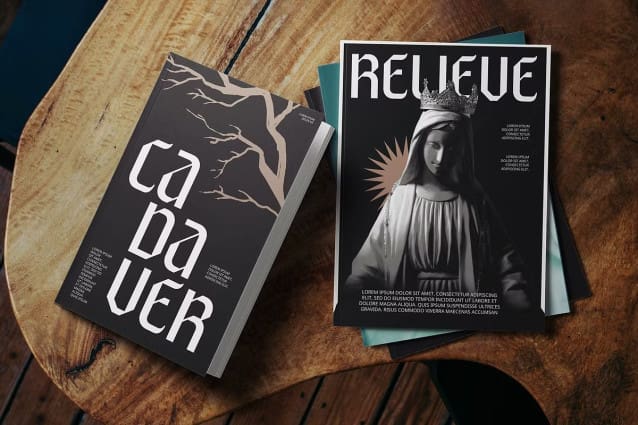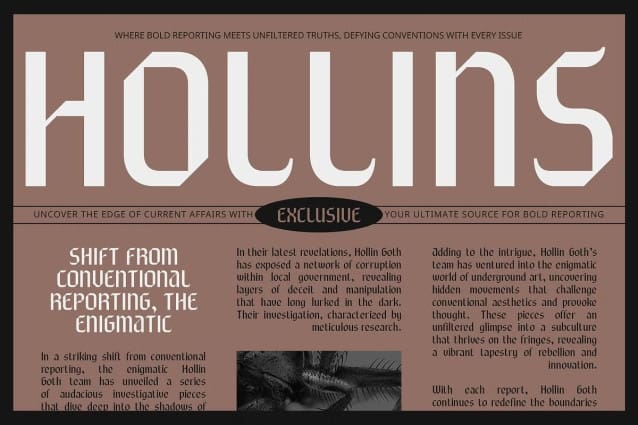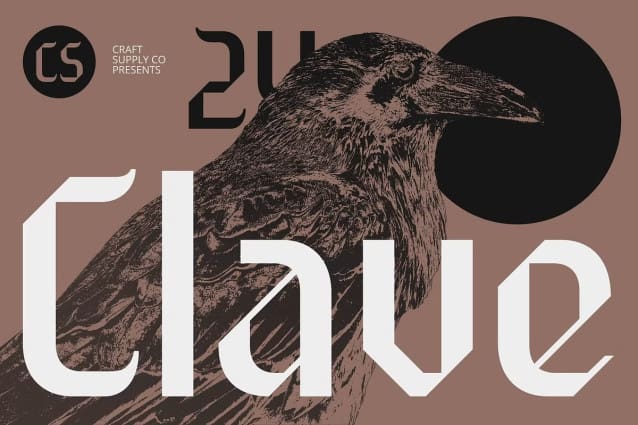
CS Clave Font
CS Clave Font is a modern sans-serif font that skillfully merges the elegance of Gothic elements with the clean simplicity of sans-serif design. Featuring geometric shapes and sharp angles, this font delivers a strong, futuristic aesthetic while maintaining the distinctive charm of Gothic style.
Clarity and Visual Impact The geometric precision and bold angles of CS Clave ensure clarity and a striking visual impact, making it ideal for contemporary applications. Whether used in branding, marketing materials, or other modern designs, the font stands out with its unique blend of historical and modern elements.
Blending Historical Flair with Modern Design While embracing a clean, minimalist approach, CS Clave retains the unique characteristics of Gothic design. This fusion of historical flair with contemporary simplicity makes it an intriguing choice for projects that require both a touch of tradition and a modern edge.
Elevate Your Designs with Gothic Modernity CS Clave brings a distinctive blend of Gothic elegance and modern clarity to your designs. Perfect for projects that need to convey both historical depth and futuristic vision, this font ensures your work is both stylish and impactful.